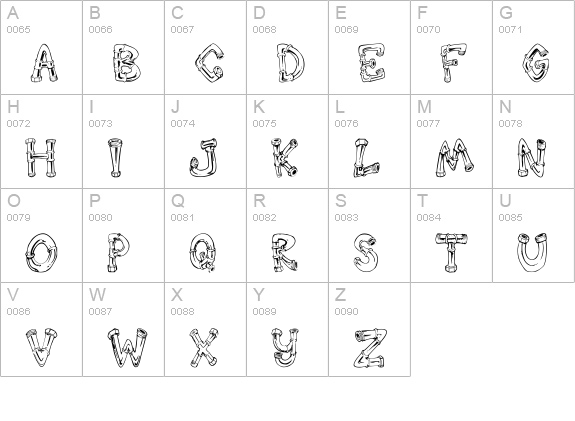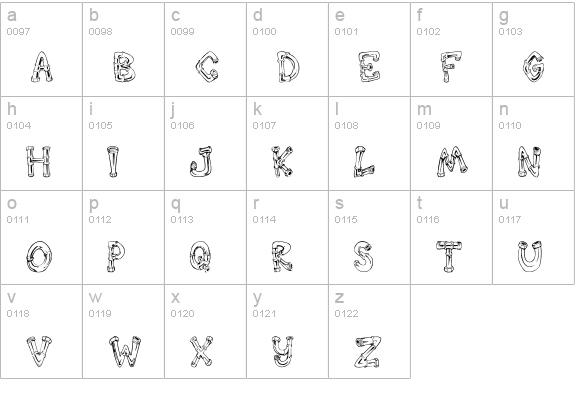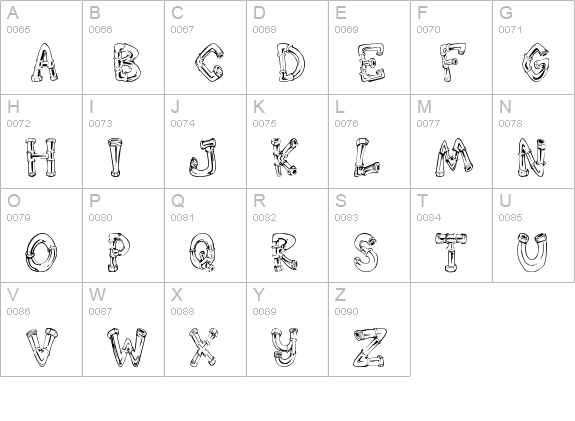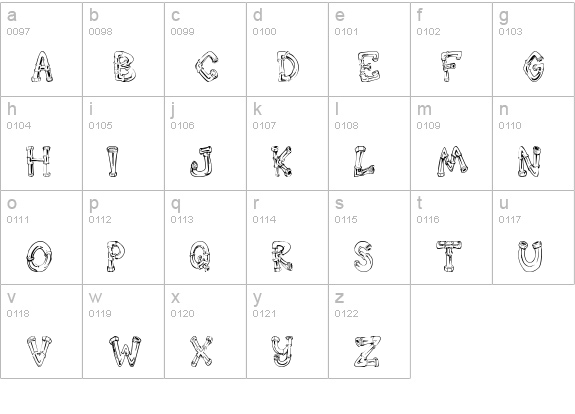
Down the Drain font is a unique and creative display typeface perfect for adding a touch of edge and personality to your designs. With its irregular and hand-drawn style, this font exudes a sense of urban grit and raw energy. The bold and dynamic letterforms make a strong statement and are sure to grab attention. This font is ideal for use in posters, logos, album covers, and any design project that calls for a bold and unconventional look. Whether you're aiming for a street-art inspired design or want to inject some rebellious spirit into your work, Down the Drain font is the perfect choice. Best of all, Down the Drain font is available for free download at FontsMarket.com. Simply visit the website and get your hands on this striking font to elevate your designs to the next level. Don't miss out on this opportunity to add a touch of urban flair to your projects with Down the Drain font.